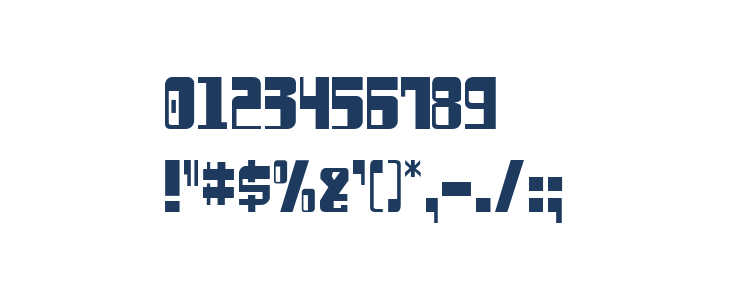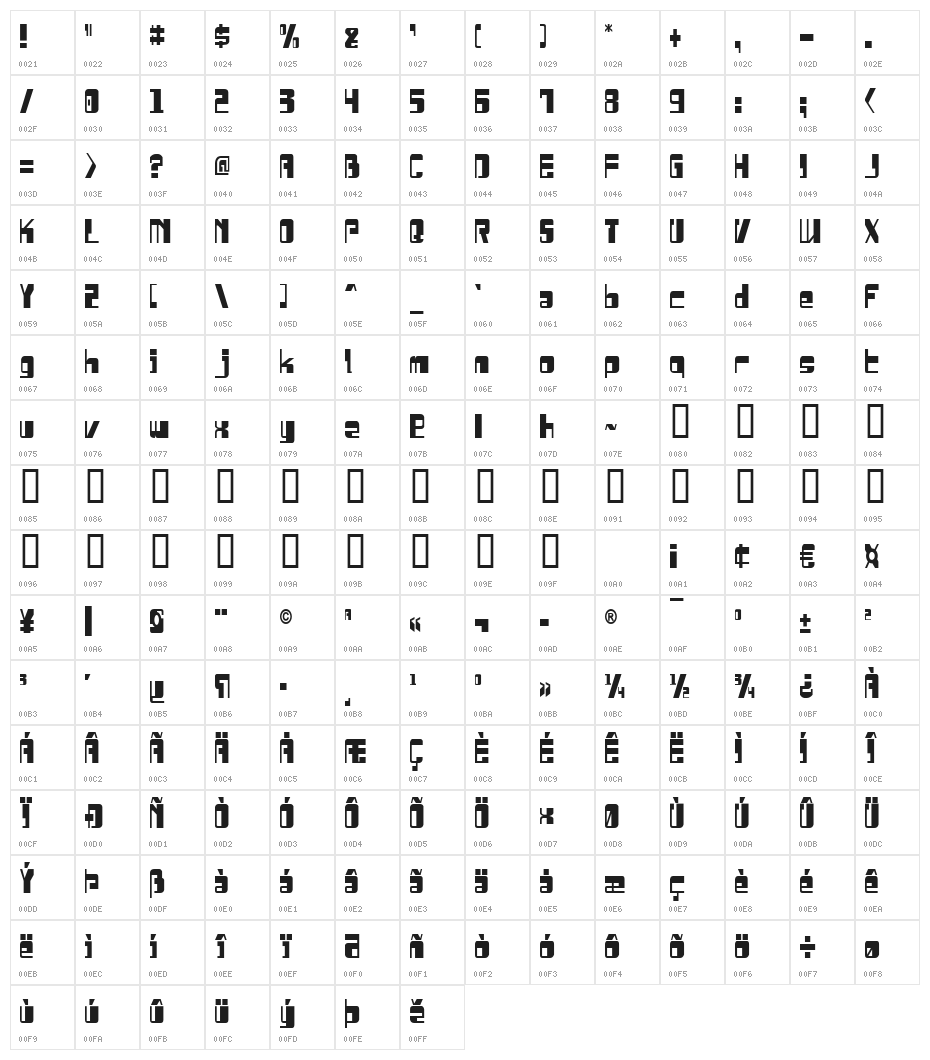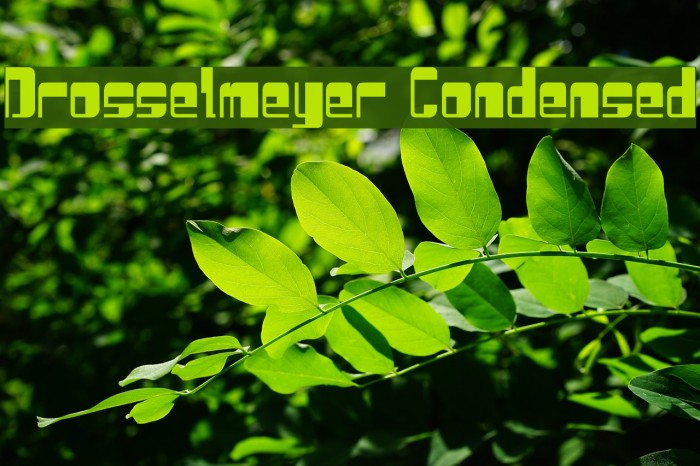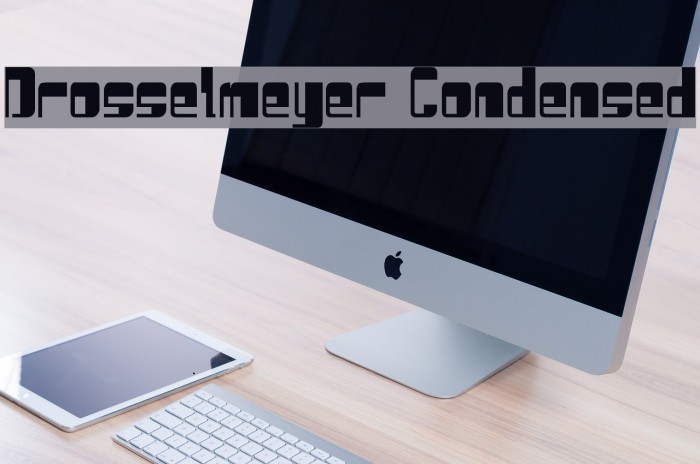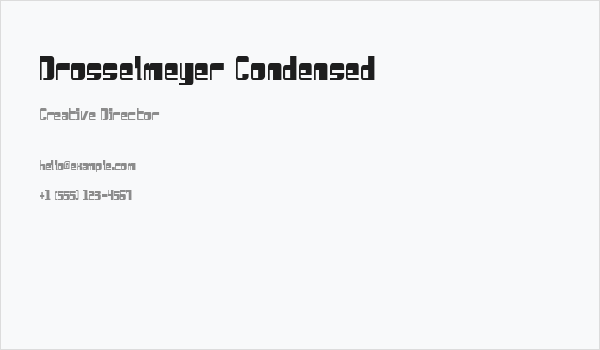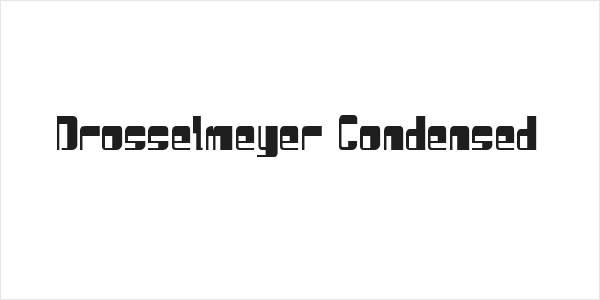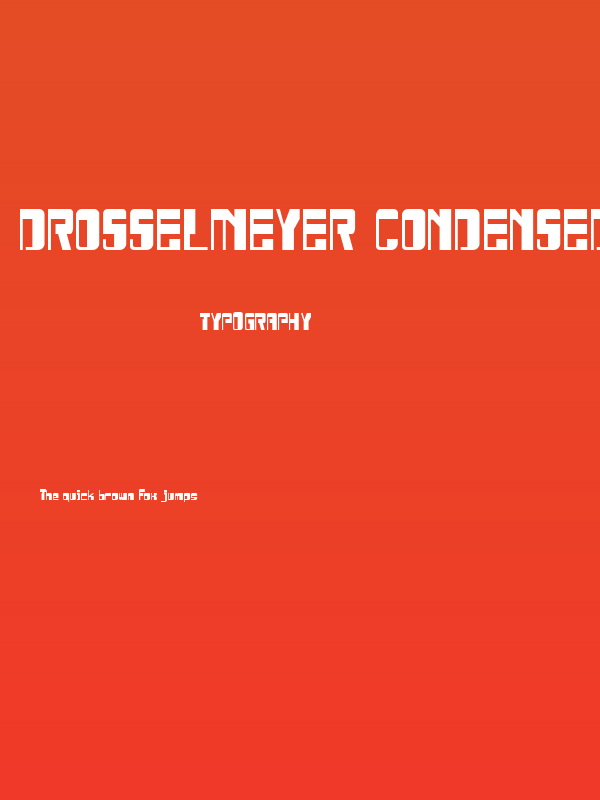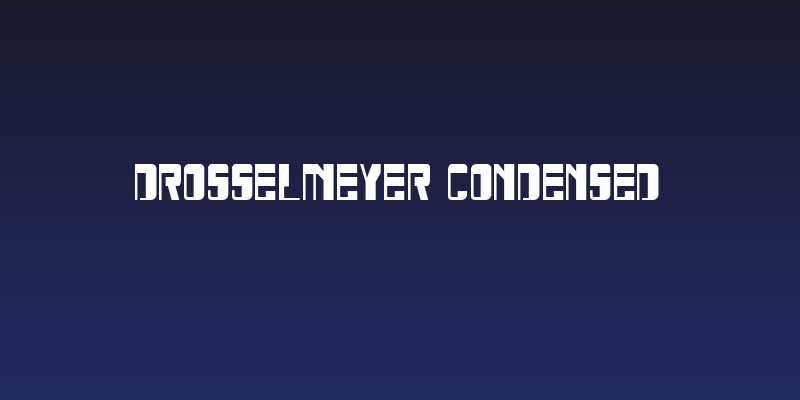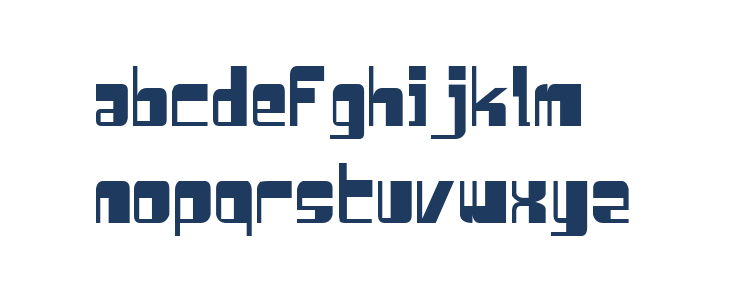
Drosselmeyer Condensed Font
Drosselmeyer Condensed Description
This font features a bold and condensed style with a modern, geometric aesthetic. The characters are constructed with sharp angles and straight lines, giving it a futuristic and industrial feel. The uppercase letters are particularly striking, with unique cutouts and shapes that create a distinctive look. The lowercase letters maintain a consistent style, complementing the uppercase with their angular design. Numbers and special characters follow the same geometric pattern, ensuring a cohesive appearance across all glyphs. The font's condensed nature makes it suitable for space-saving designs while maintaining readability.